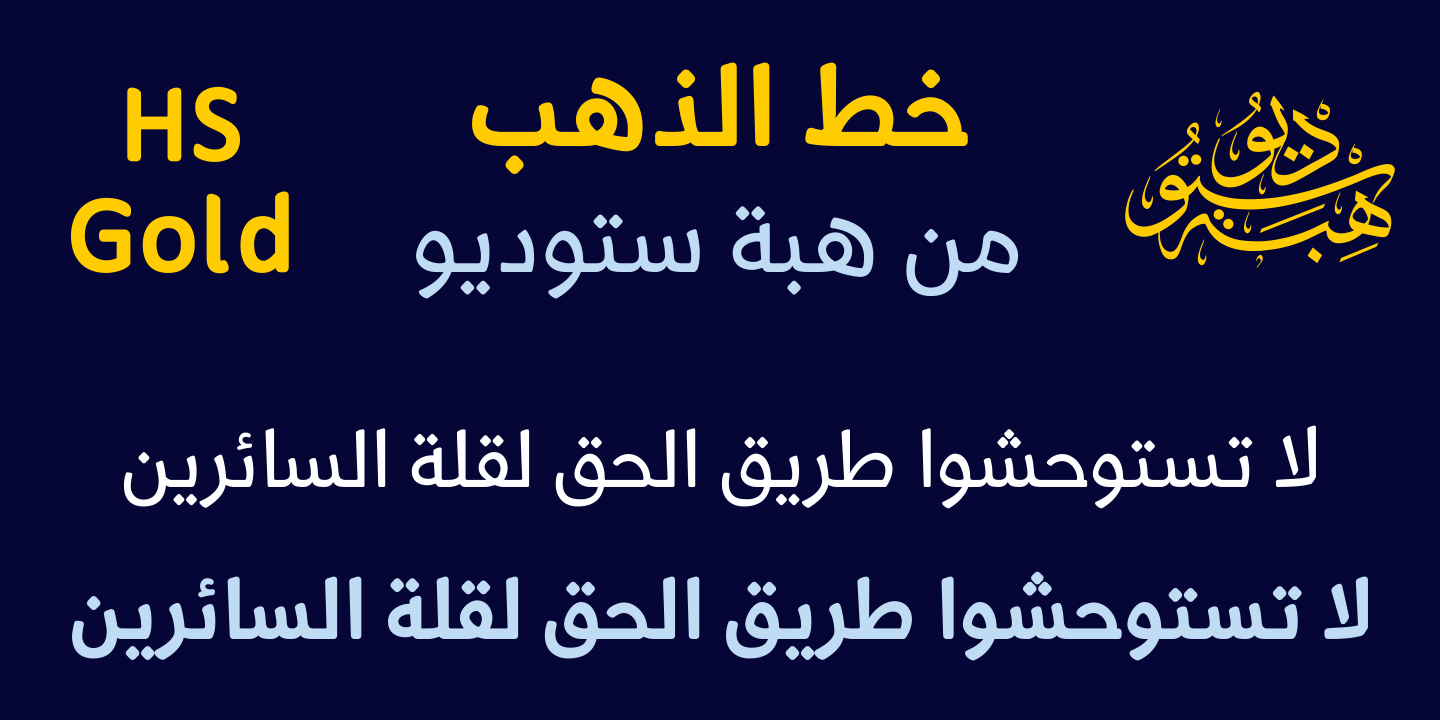
Experience luxury typography with HS Gold Font Free Download, a premium typeface that embodies elegance, sophistication, and timeless refinement. This exceptional font brings opulent style to any design project, making it the perfect choice for brands seeking to convey prestige and high-end appeal.
HS Gold Font features meticulously crafted letterforms with luxurious proportions and refined details that exude quality and exclusivity. The font excels in luxury branding, jewelry advertising, high-end fashion campaigns, premium product packaging, upscale hospitality materials, and corporate communications requiring sophisticated visual presence. Its prestigious character instantly elevates brand perception and market positioning.
This distinguished typeface performs flawlessly across both print and digital applications, maintaining its elegant appearance at any size. Whether you're designing award certificates, creating wedding invitations, developing luxury brand identities, or crafting premium marketing materials, HS Gold Font ensures your projects radiate class and sophistication.
Design professionals worldwide choose the HS Gold Font Free Download for projects demanding refined aesthetics and premium appeal. The font works brilliantly for financial institutions, luxury hotels, exclusive restaurants, high-end retail brands, and any business seeking to establish credibility through sophisticated typography choices.
The complete HS Gold Font family includes multiple weights and variations, providing comprehensive design flexibility for creating cohesive luxury brand systems. Each character demonstrates exceptional craftsmanship, ensuring consistent quality and elegant appearance across all applications and platforms.
Ideal for graphic designers, luxury brand specialists, and marketing professionals, this font combines prestigious appeal with practical functionality. HS Gold Font supports extensive character sets, making it perfect for international luxury campaigns and multilingual premium content.